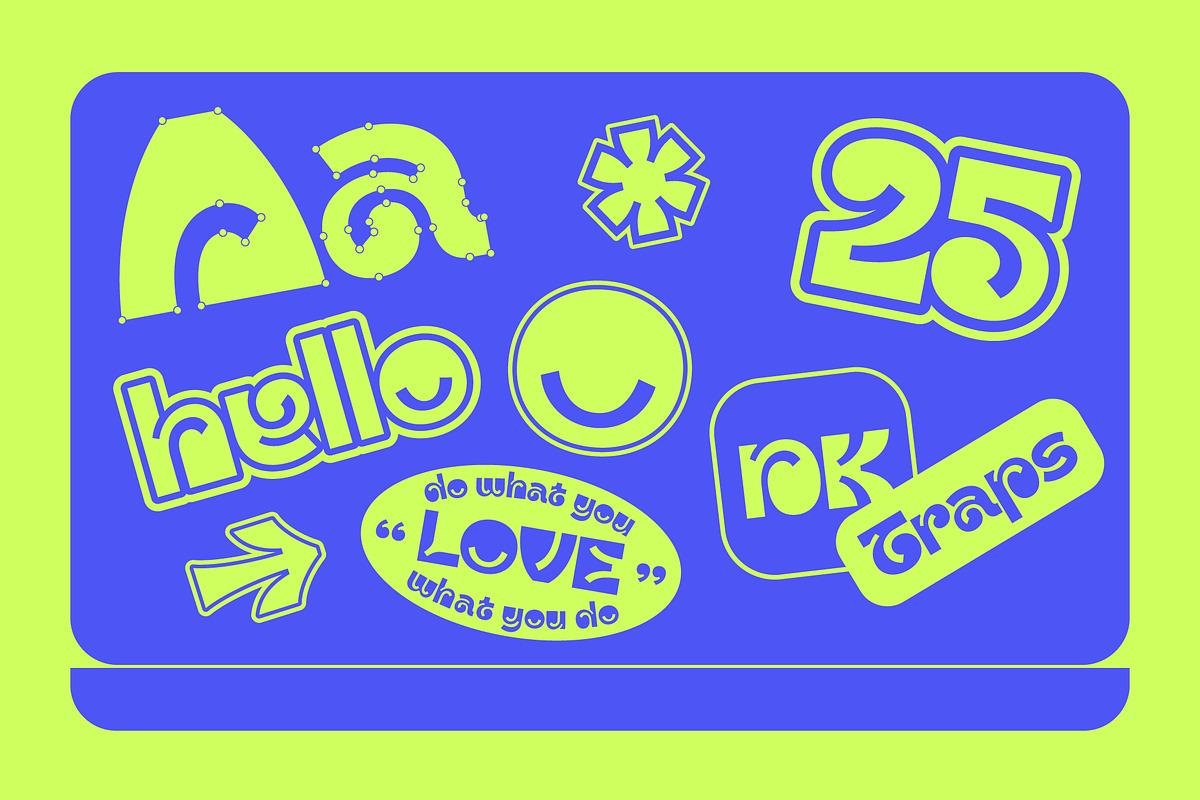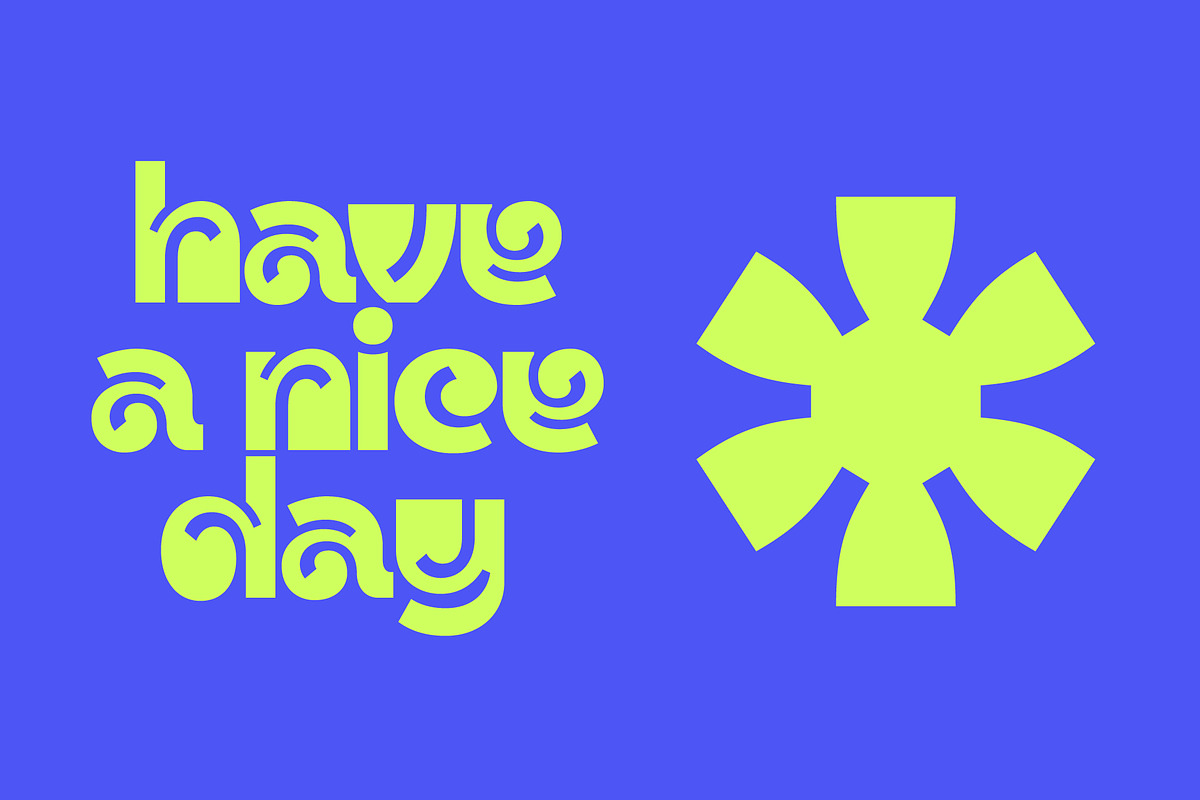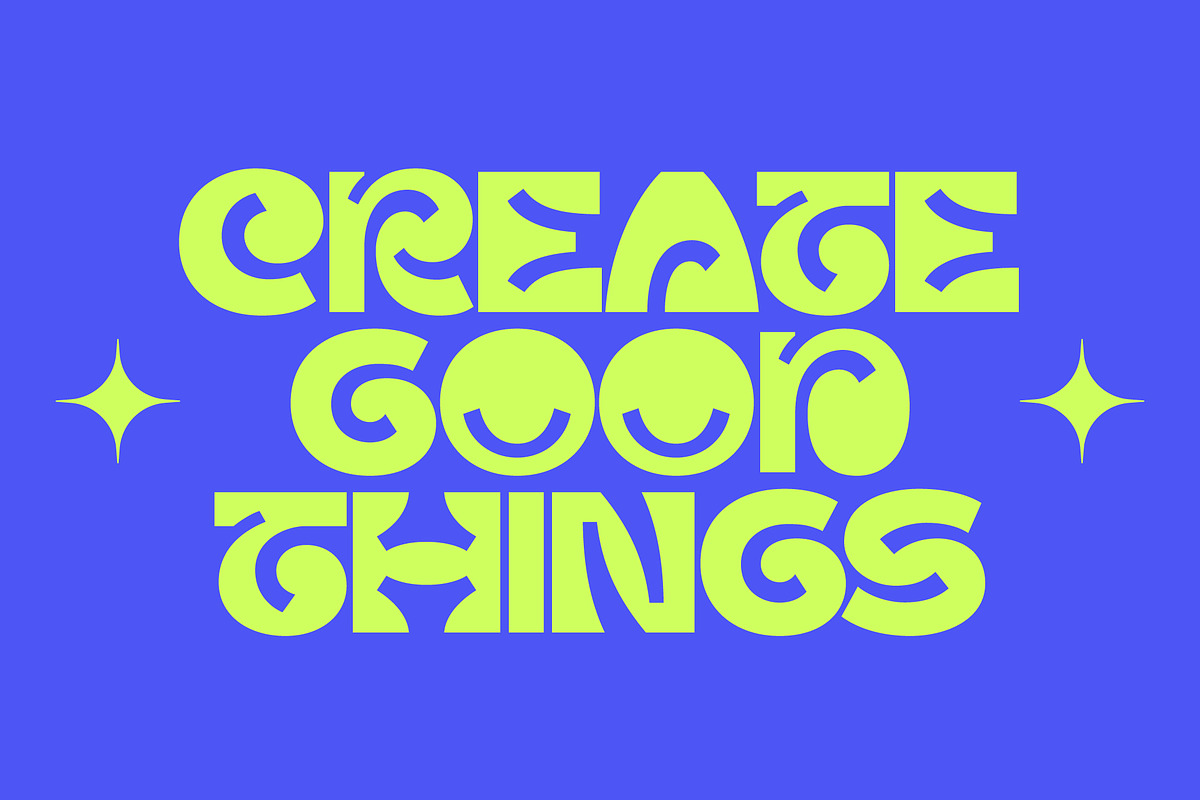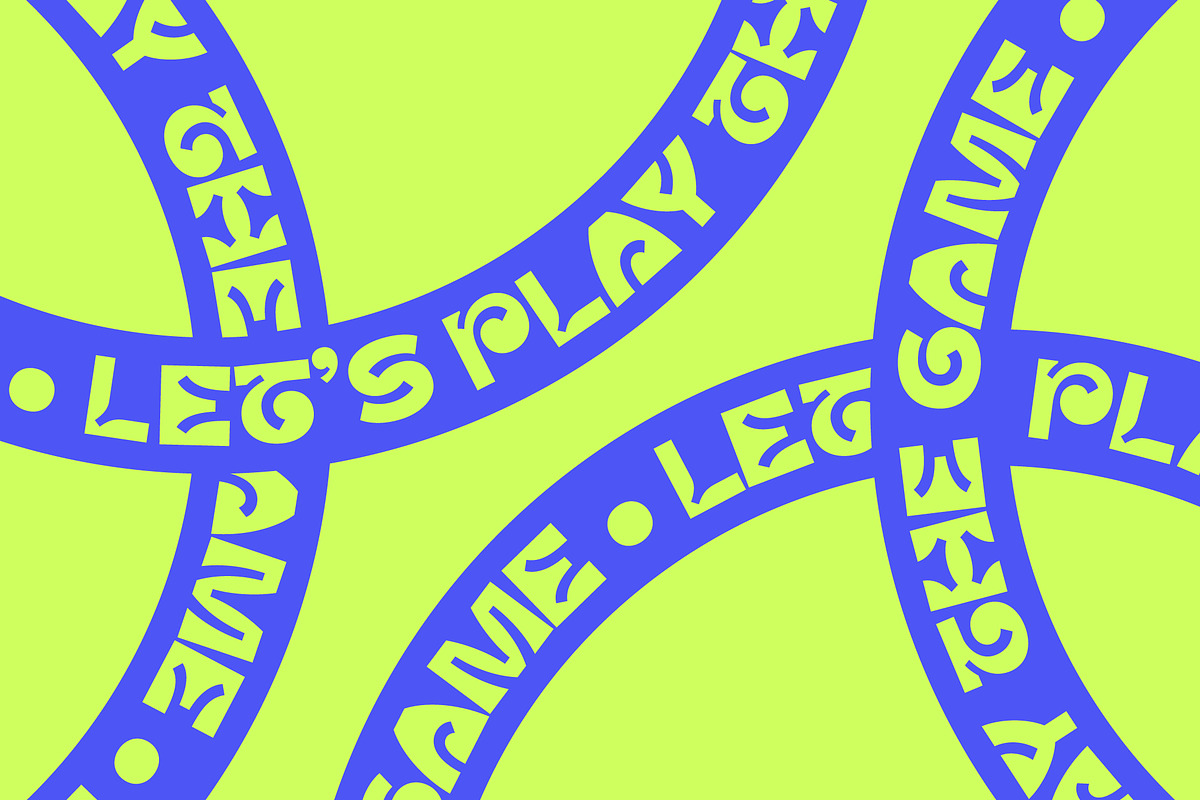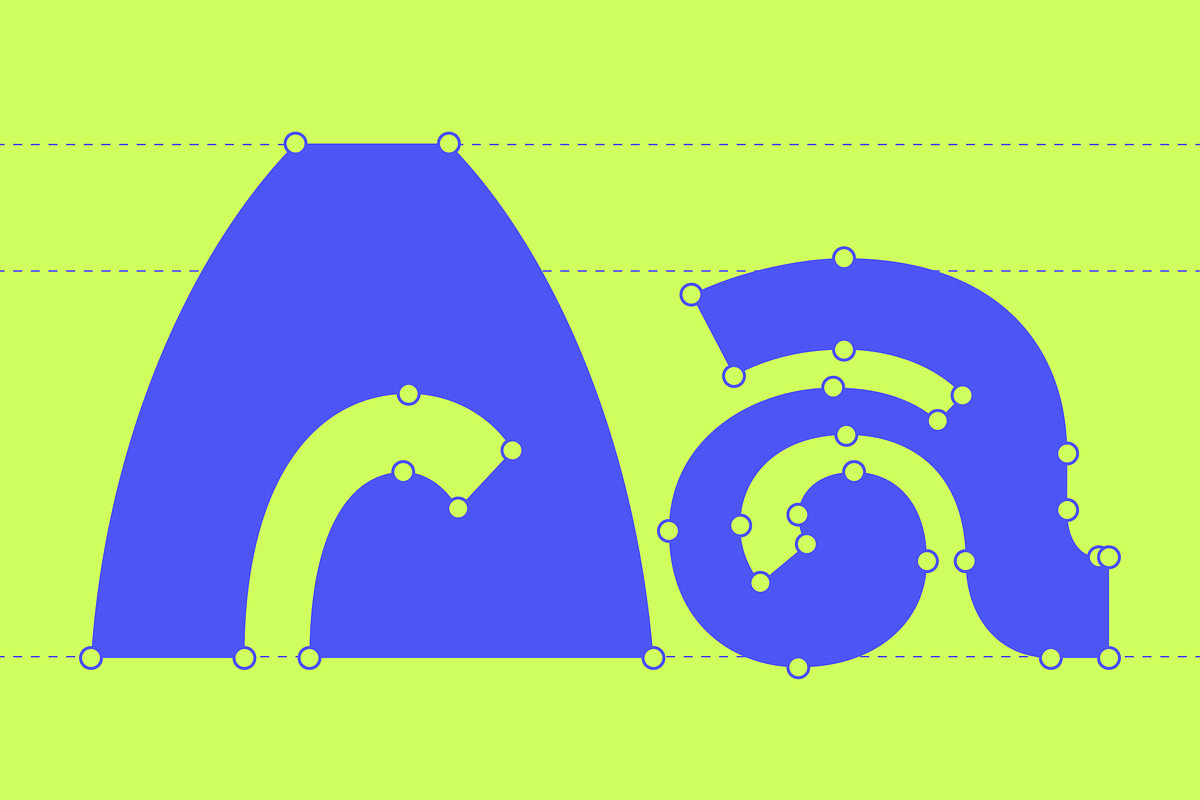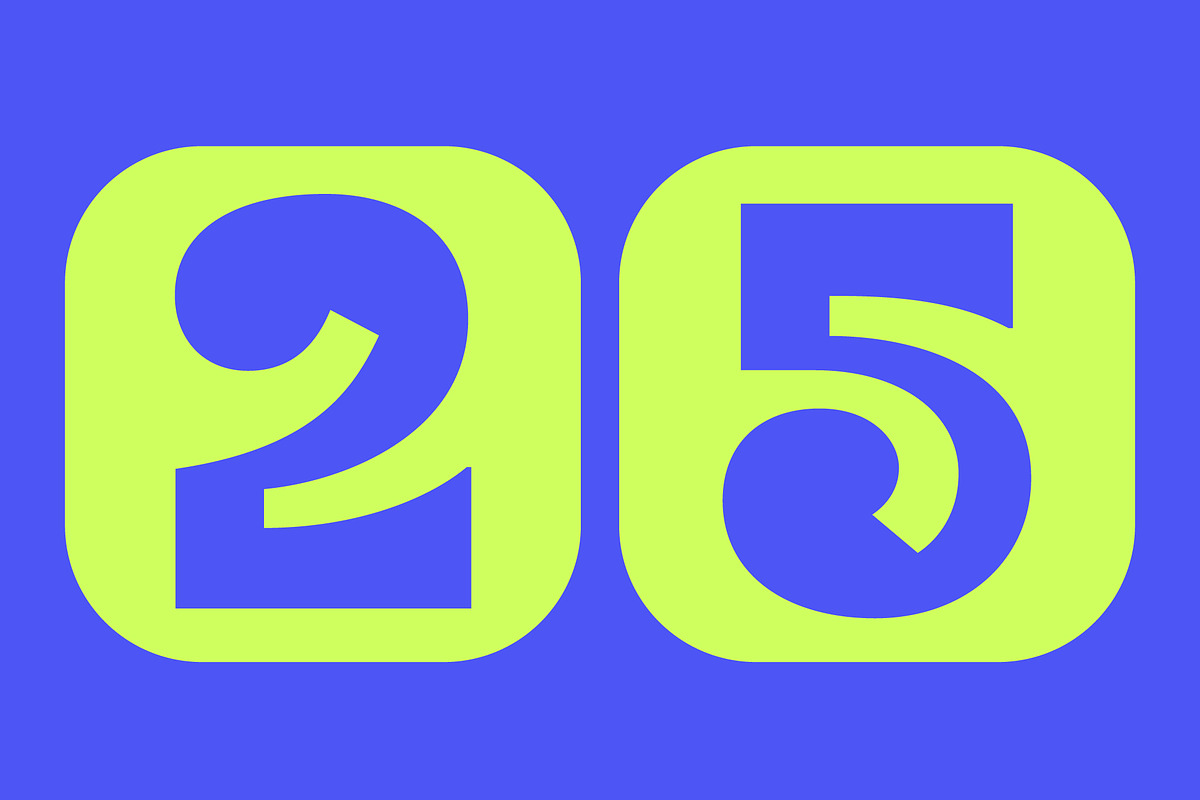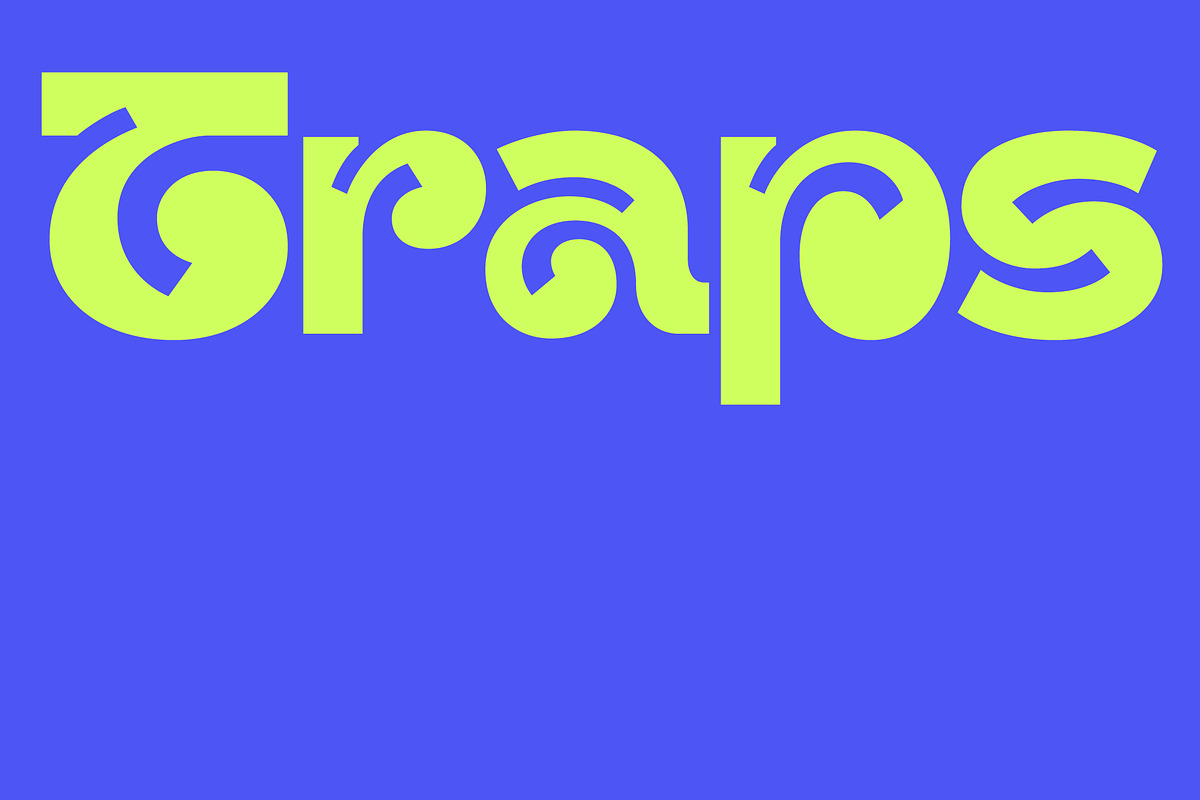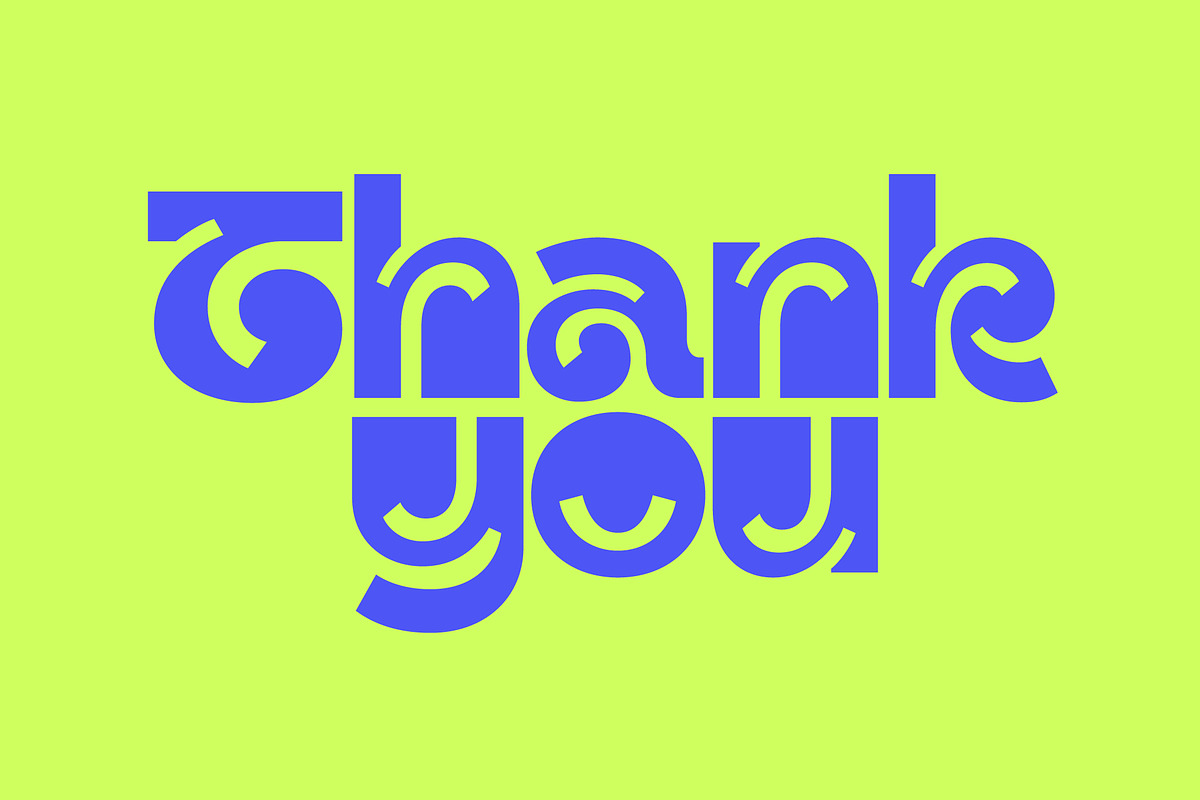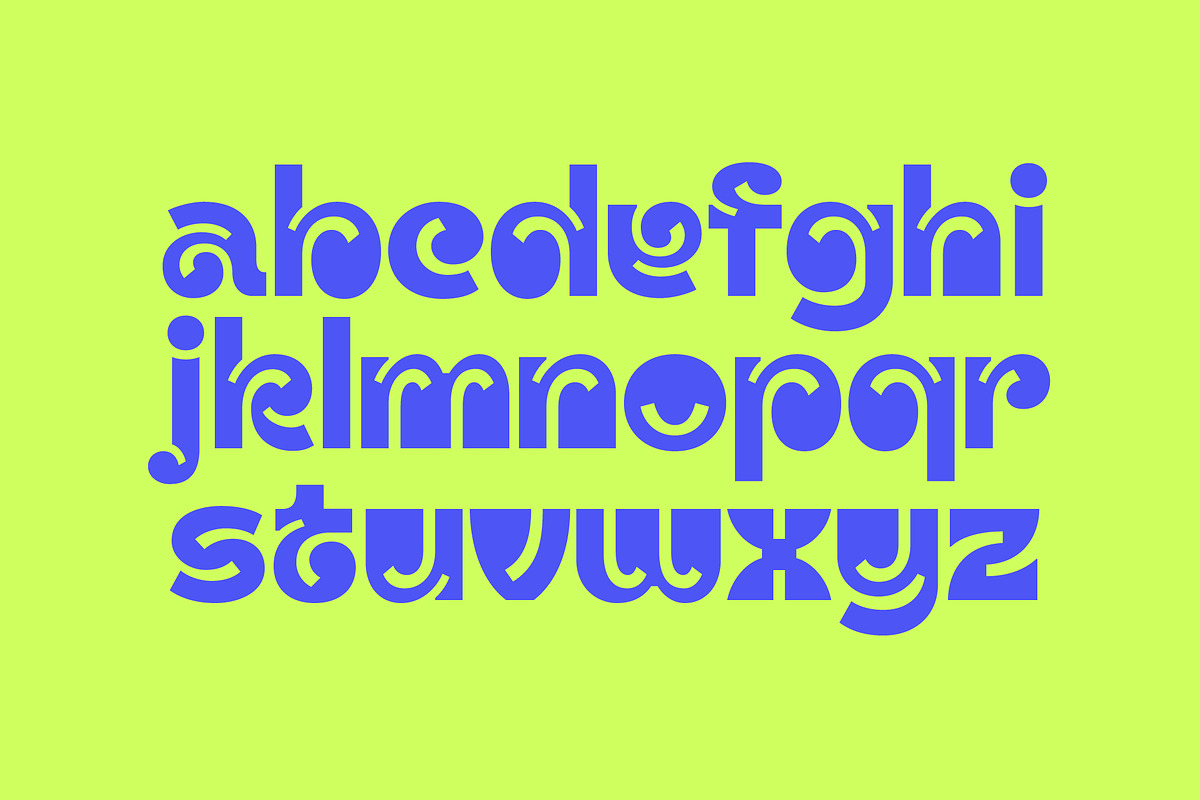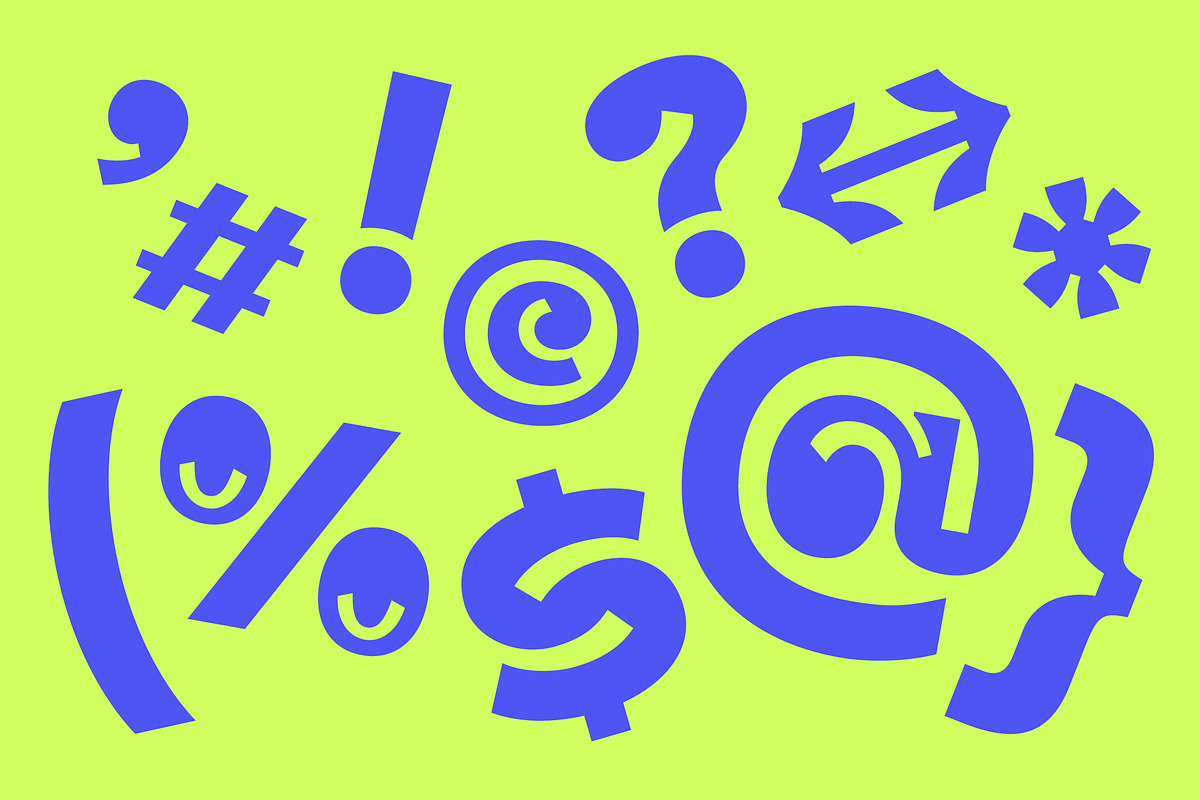
DK Traps
DK Traps challenges conventional type design, making technical features a source of visual delight. Its defining ink traps—traditionally a utilitarian solution—become a lively motif, drawing the eye and inviting a closer look. The result is a typeface that strikes a balance between boldness and playfulness, ideal for graphic designers seeking a unique typographic voice.
Heavy curves and energetic strokes ensure each letterform offers a sense of movement and personality. Designed for those who value experimentation, DK Traps is well-suited to editorial layouts, branding systems, and standout headlines. Its dynamic approach to ink traps captures the unexpected—transforming what could be a flaw into a celebration of individuality in graphic design.
Features: Bold, quirky letterforms with prominent ink traps. Heavy curves providing strong visual presence. Distinctive, playful character for creative projects. Balanced readability and eye-catching style